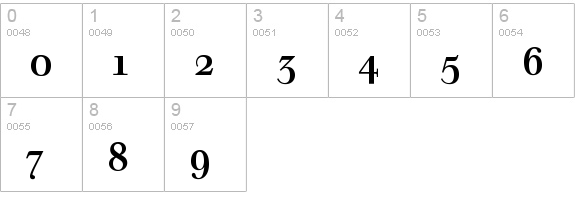
Walbaum Standard Expert Medium Font Details
Walbaum Standard Expert Medium is a balanced, medium-weight variant in the Walbaum typeface family \xE2\x80\x94 well suited to sub-headlines, navigation, and balanced editorial work.
Introducing Walbaum Standard Expert Medium, a timeless and elegant font that effortlessly combines classic sophistication with modern versatility. Crafted with meticulous attention to detail, this font embodies a perfect balance of refined curves and sharp edges, resulting in a truly harmonious typographic experience. Walbaum Standard Expert Medium is designed to make a statement, whether used for headlines, body text, or any other creative project. Its medium weight strikes the perfect balance between legibility and visual impact, making it suitable for a wide range of applications. From editorial designs to branding projects, this font exudes a sense of confidence and authority that captivates the reader's attention. One of the most remarkable aspects of Walbaum Standard Expert Medium is its versatility. It effortlessly transitions between traditional and contemporary designs, making it suitable for both classic and modern aesthetic preferences. Its timeless appeal ensures that it remains relevant and impactful for years to come. And the best part? Walbaum Standard Expert Medium is freely available to download at FontsMarket.com. Whether you're a professional designer or an aspiring creative, you can now access this exceptional font without any cost. This generous offering allows you to unlock the full potential of your designs without breaking the bank. So don't miss out on this incredible opportunity. Download Walbaum Standard Expert Medium today and elevate your typographic creations to new heights. With its impeccable design and freely accessible availability, this font is a must-have addition to any designer's toolkit. Discover the power of Walbaum Standard Expert Medium and experience the beauty of timeless typography firsthand.